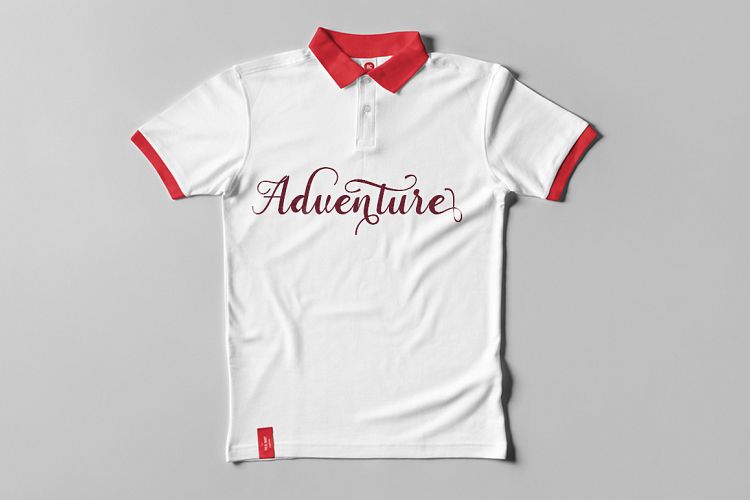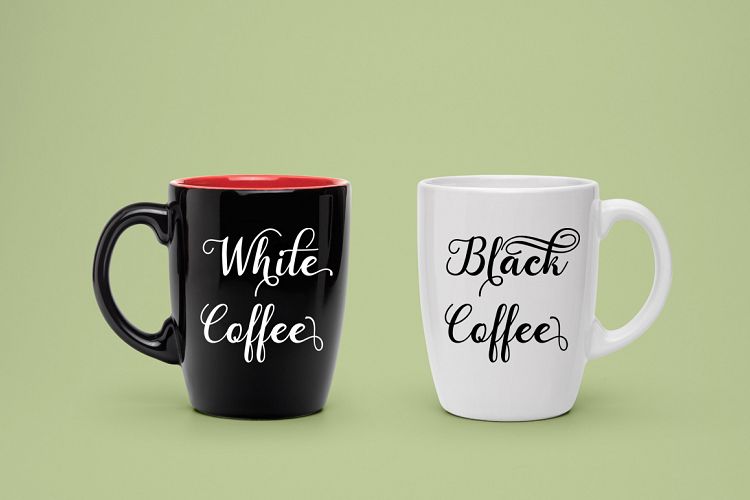
Cangkhoi Script Font
Introducing Cangkhoi Font. Cangkhoi New fresh & modern style with handmade calligraphy, decorative characters and dancing lineage! So wonderful are invitations like greeting cards, branding material, business cards, quotes, posters, and more !!